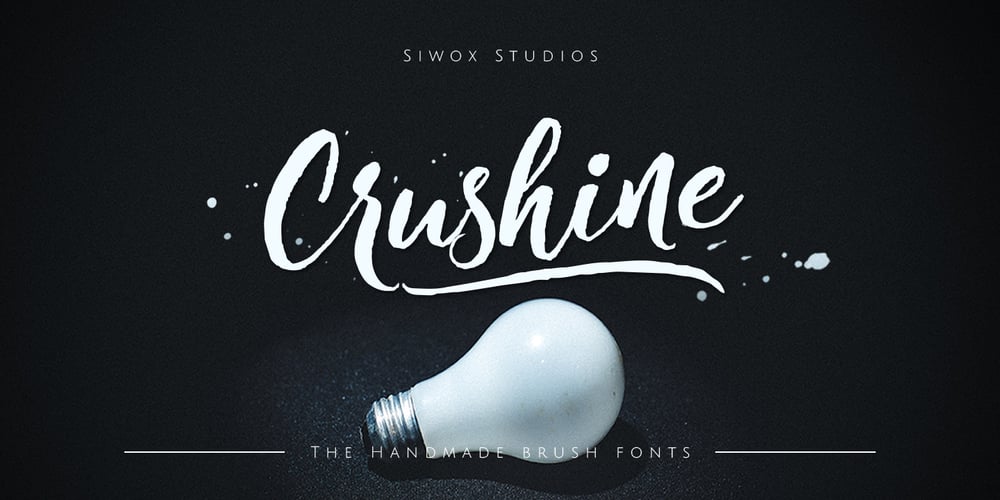
Crushine Brush
Crushine Brush font
Crushine Brush Font Family was designed by Sarwo Edi and published by Siwox Studios. Crushine Brush contains 2 styles and family package options. Crushine is a casually and quickly written brush script Fonts. Letters are made with brush pen on a paper. Then scanned and carefully drawn into vector format. There is just a handmade typeface so it looks good in small and big sizes. These elements gives Crushine its organic, authentic and laid-back characteristics. Crushine is not textured brush font. It’s contemporary approach to design, handmade natural with an less regular baseline. Suitable for use in title design. Such as apparel, invitations, books tittle, stationery design, quotes, branding, logos, greeting card, t-shirt, packaging design, poster and more. Crushine includes a complete set of uppercase and lowercase letters, as well as multi-language support, numbers, punctuation, ligatures. Crushine has 2 versions. Crushine Brush Script & Crushine Brush Alternative. It has small differences in each character to add natural nuances on fonts. This is not a family typeface. Thank you!